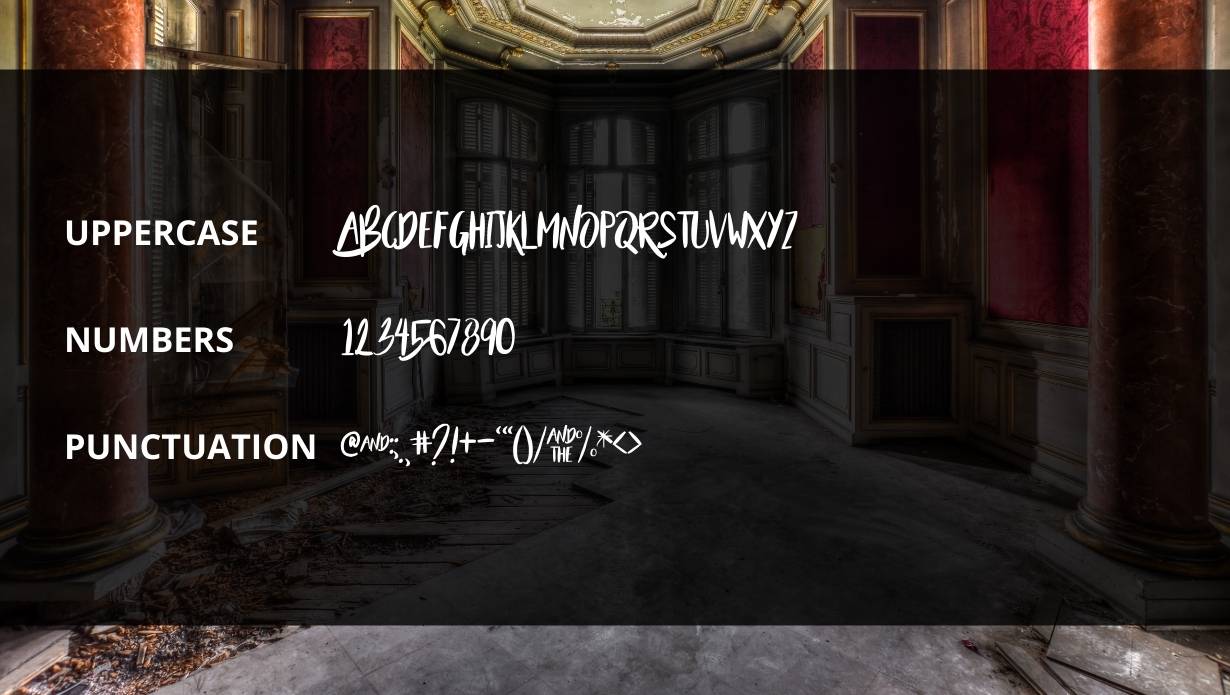
Beauty and the Beast Font Free Download
Beauty and the Beast Font is a script-typeface with a calligraphic appearance. Disney designed it for their 1991 animated film with the same title. The font is named after the movie’s protagonist, Belle, and incorporates elements inspired by her tale.
The Beauty and the Beast Font was created by Disney’s in-house typeface designer, David Willardson. Willardson based the design on his own handwriting, with some influence from traditional calligraphy.
The style of typeface is much similar to the looney tunes font with the same connected letterforms and high-quality graphics you can try for your valuable designs.
View of Beauty and the Beast Font
Beauty and the Beast Font Info
| Name | Beauty and the Beast Font |
| Designer | David Willardson |